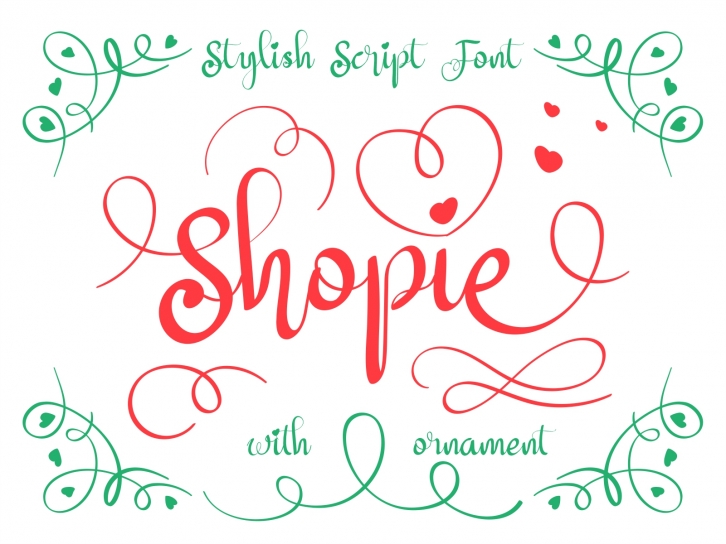
Shopie is a delicate script font decorated with curved lines. Not too thin and not too thick, balanced and varied, this font was designed to enhance the beauty of your projects.